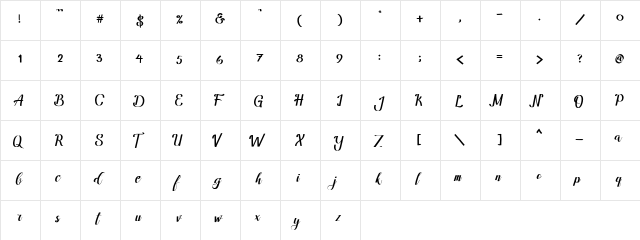
Amandella Script Font Preview
Amandella Script Amandella Script
Amandella Script Font Details
| Style | Amandella Script |
| Foundry | Suandana ipandemade |
Design Context for Amandella Script Typeface
Amandella Script brings a calligraphic fluidity to the page — its connecting strokes and expressive curves give it an unmistakably human quality.
Font Pairing: Combine Amandella Script with a simple geometric sans for maximum contrast — the tension between flowing curves and clean structure is a classic typographic pairing.
Pro Tip: Pair Amandella Script with a clean sans-serif for supporting text. The contrast between fluid script and geometric structure creates an elegant typographic hierarchy.